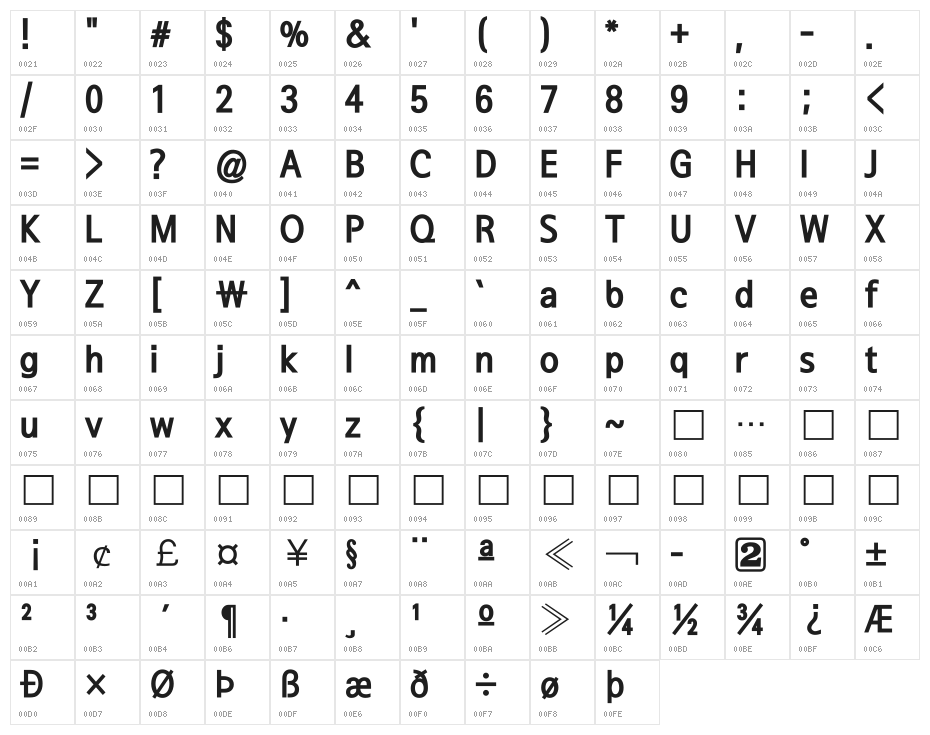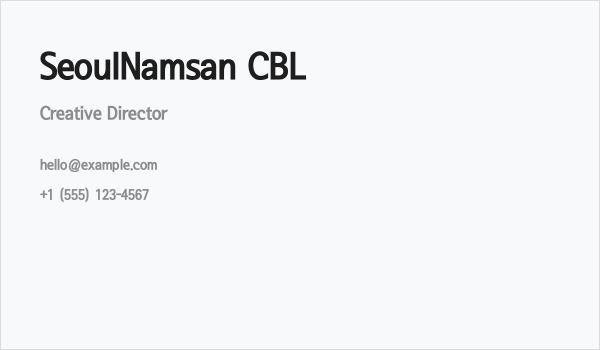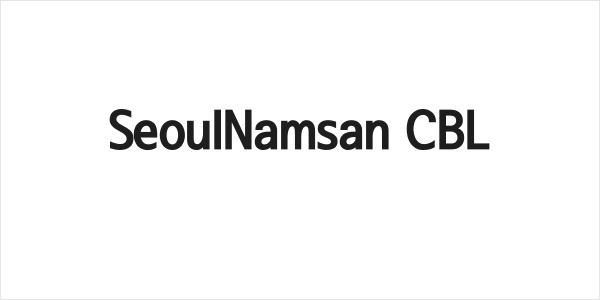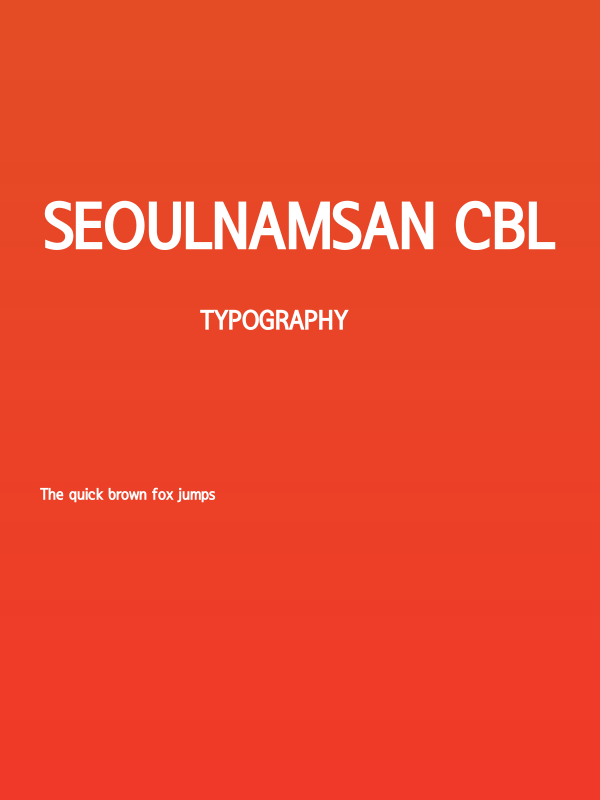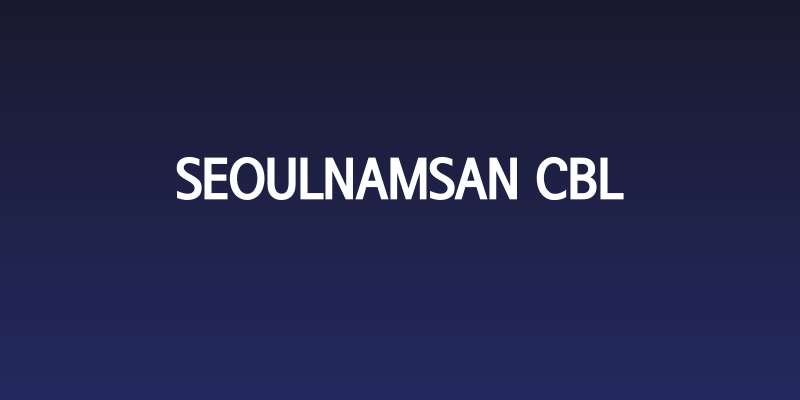
SeoulNamsan CBL Font
SeoulNamsan CBL Description
This font features a clean and modern sans-serif design with bold, uniform strokes that provide excellent readability. The characters are well-proportioned, with consistent line thickness that gives a strong and confident appearance. The uppercase letters are slightly taller than the lowercase, maintaining a balanced look. The numerals are clear and distinct, making them easily distinguishable. Special characters are designed with the same boldness, ensuring they stand out. Overall, the font's simplicity and clarity make it versatile for various design applications.
| Use Case | Headlines, Logos, Digital content |
| Proposed Projects | Ideal for branding, advertising, headlines, and digital content where clarity and impact are essential. |